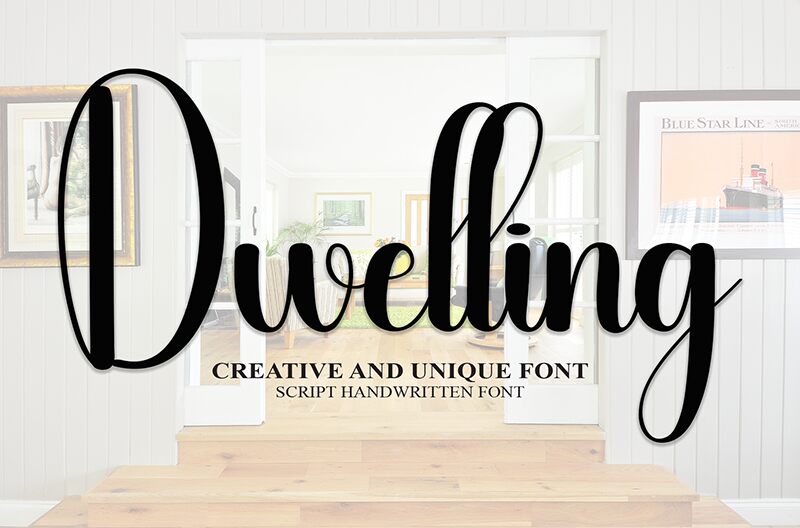
Dwelling
Dwelling font, made by Andi Moz, is a free calligraphy font with a sophisticated mood and elegant fluid style. Its script elements enhance its modern appeal, creating both simple and complex aesthetics at the same time. Dwelling has a welcoming presence with potential for branding capabilities of the company or artist using it.
Use this brilliant typeface in greeting cards, weddings invitations, book covers, typography artwork posters. Additional purposes involve project titles for web development projects or blogs as well as logos for cosmetic companies or jewelry shops. Other applications include brochures, magazines headlines, signage designs and more in visual art digital/ print form.